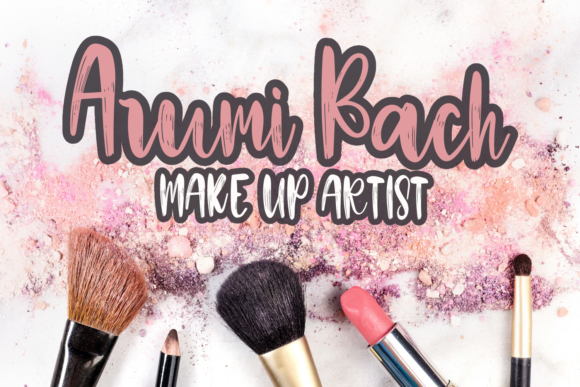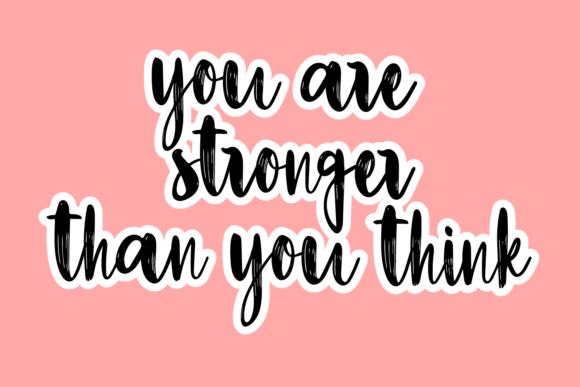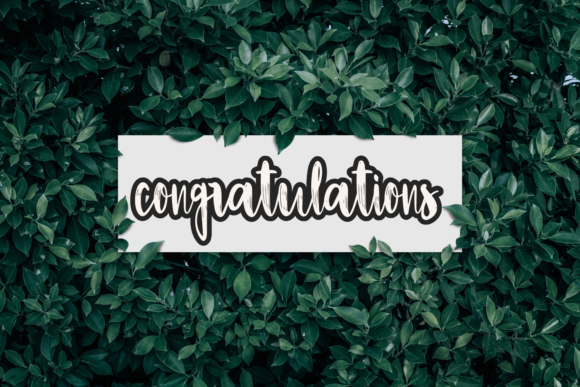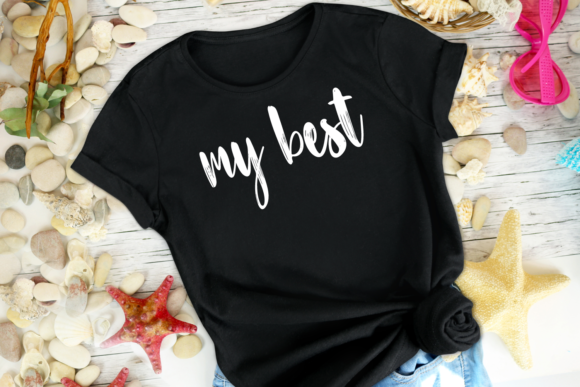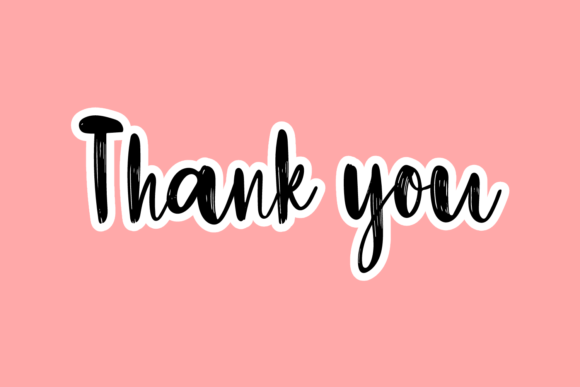
The Perfect Brush Stroke for Your Next Masterpiece
Have you ever been stuck in a creative rut, staring at a blank page with no idea where to start? You’re not alone. We’ve all been there, searching for that perfect spark to ignite our imagination. For designers, finding the right font can be the key to unlocking a new level of creativity. And that’s where Camila Font comes in – a fun and chunky display font designed to make your creations stand out.
With its well-rounded letters that resemble brush strokes, Camila Font is the perfect addition to any designer’s toolkit. Whether you’re working on a bold new logo, a playful advertisement, or a whimsical children’s book, this font is sure to bring a touch of originality to your work. Its versatility and unique charm make it a valuable asset for designers looking to add a little extra flair to their projects.
Camila Font Key Features
- Font Family: Camila Font is a script font, ideal for creating elegant and sophisticated designs.
- Unique Characteristics: Camila Font features intricate, hand-drawn lettering with subtle flourishes, adding a touch of sophistication to any design.
Camila Font Review
Camila Font is a beautiful and elegant font that can add a touch of sophistication to any design project. ✨ One of the things that works well in this font is its legibility. It’s clear and easy to read, making it perfect for body text or headlines. The font also has a nice balance of curves and lines, giving it a unique and stylish look.
- ✨ Elegant and sophisticated design
- ✨ High legibility, making it perfect for body text or headlines
- ✨ Unique balance of curves and lines
However, there are some limitations to consider. ⚠️ The font may not be the best choice for bold or dramatic headlines, as it can come across as a bit too delicate. Additionally, the font family is relatively small, so you may not have as many options for customizing your design.
- ⚠️ May not be suitable for bold or dramatic headlines
- ⚠️ Relatively small font family, limiting customization options
Overall, I think Camila Font is a great choice for designers looking for a elegant and sophisticated font. While it may not be the best fit for every project, it’s definitely worth considering for projects that require a touch of class and refinement.
Camila Font is perfect for:
- Brand logos and marketing materials
- Book covers and publishing materials
- Any design project that requires a elegant and sophisticated look